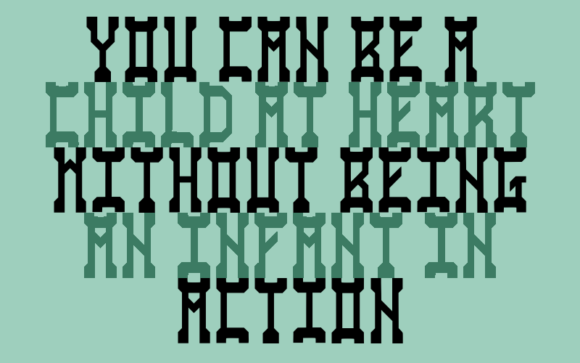
Discover the Charm of Doctor Mingo Font: A Playful Twist on Classic Serif Fonts
Are you tired of using the same old fonts in your designs? Look no further than Doctor Mingo, a playful and classic decorative font that’s sure to add a touch of personality to your projects. With its unique approach to lettering, Doctor Mingo is perfect for designers and crafters looking to add a bit of whimsy to their work.
The Inspiration Behind Doctor Mingo
Doctor Mingo is a font that draws inspiration from traditional serif fonts, but with a playful twist. Its creator aimed to capture the essence of classic lettering while infusing it with a modern, fun vibe. The result is a font that’s both nostalgic and fresh, making it perfect for a wide range of design applications.
What Makes Doctor Mingo So Special?
So, what sets Doctor Mingo apart from other fonts? Here are just a few of its standout features:
• Unique Letterforms: Doctor Mingo’s letterforms are carefully crafted to be both playful and elegant. Each letter has its own distinct character, making it perfect for creating eye-catching headlines and titles.
• Serif Details: The font features traditional serif details, but with a modern twist. The serifs are subtle yet distinctive, adding a touch of sophistication to any design.
• Playful Vibe: Doctor Mingo has a fun, carefree vibe that’s perfect for designs that need a bit of personality. It’s ideal for use in children’s books, greeting cards, and other projects where a playful tone is desired.
How to Use Doctor Mingo in Your Designs
Doctor Mingo is a versatile font that can be used in a wide range of design applications. Here are a few ideas to get you started:
• Headlines and Titles: Use Doctor Mingo to create eye-catching headlines and titles that are sure to grab attention.
• Children’s Books: The font’s playful vibe makes it perfect for use in children’s books, where it can add a touch of whimsy and fun.
• Greeting Cards: Doctor Mingo is also great for use in greeting cards, where its elegant yet playful style can help make your cards stand out.
• Branding and Packaging: The font’s unique approach to lettering makes it perfect for use in branding and packaging, where it can help create a memorable and distinctive brand identity.
Tips for Getting the Most Out of Doctor Mingo
Here are a few tips for getting the most out of Doctor Mingo:
• Experiment with Font Sizes: Doctor Mingo looks great in a variety of font sizes, from large headlines to smaller body text.
• Pair it with Other Fonts: Try pairing Doctor Mingo with other fonts to create a unique and eye-catching combination.
• Use it in Combination with Images: The font’s playful vibe makes it perfect for use in combination with images, where it can help add a touch of personality to your designs.
Font Name Doctor Mingo Font
Author Spencer.Cavanaugh
Doctor Mingo is a playful and classic decorative font that’s sure to add a touch of personality to your designs. With its unique approach to lettering and traditional serif details, it’s perfect for designers and crafters looking to create eye-catching headlines, titles, and more. So why not give Doctor Mingo a try and see how it can inspire your next design project?
Whether you’re a seasoned designer or just starting out, Doctor Mingo is a font that’s sure to delight. Its playful vibe and elegant style make it perfect for a wide range of design applications, from children’s books to branding and packaging. So go ahead, get creative with Doctor Mingo, and see what amazing designs you can come up with!